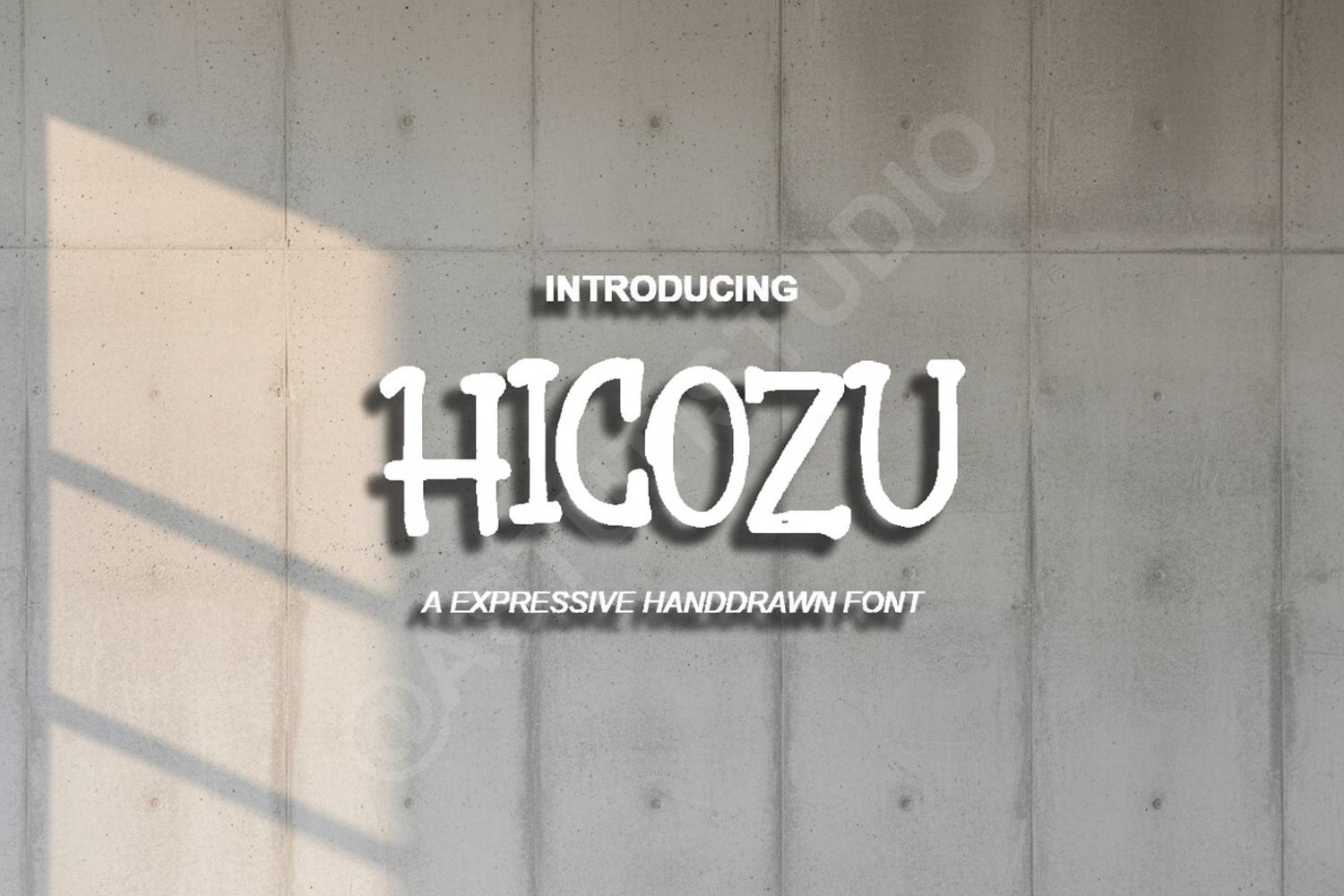
Hicozu - Modern Minimalist Display Font
Hicozu
Hicozu is a premium display font meticulously crafted to bring a sense of modern elegance and sophistication to your creative projects. With its clean lines and balanced proportions, Hicozu offers a timeless aesthetic that bridges the gap between contemporary minimalism and classic style. Whether you are working on a high-end luxury brand or a sleek digital interface, this font provides the versatility and professional polish you need to stand out.
- Branding and Visual Identity: Create memorable logos and corporate assets.
- Editorial Design: Perfect for magazine headers and sophisticated layouts.
- Wedding and Stationery: Add a touch of class to invitations and event cards.
- Social Media: Elevate your digital presence with clean, readable typography.
- Packaging: Ideal for high-end product labels and modern retail designs.